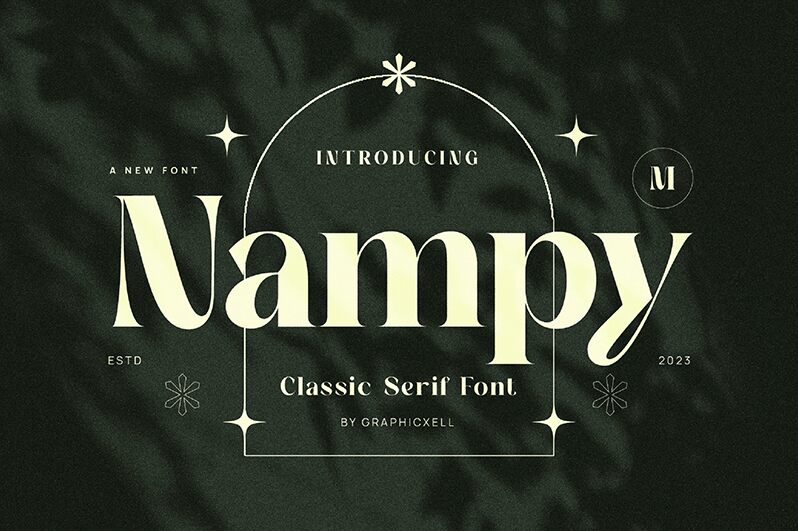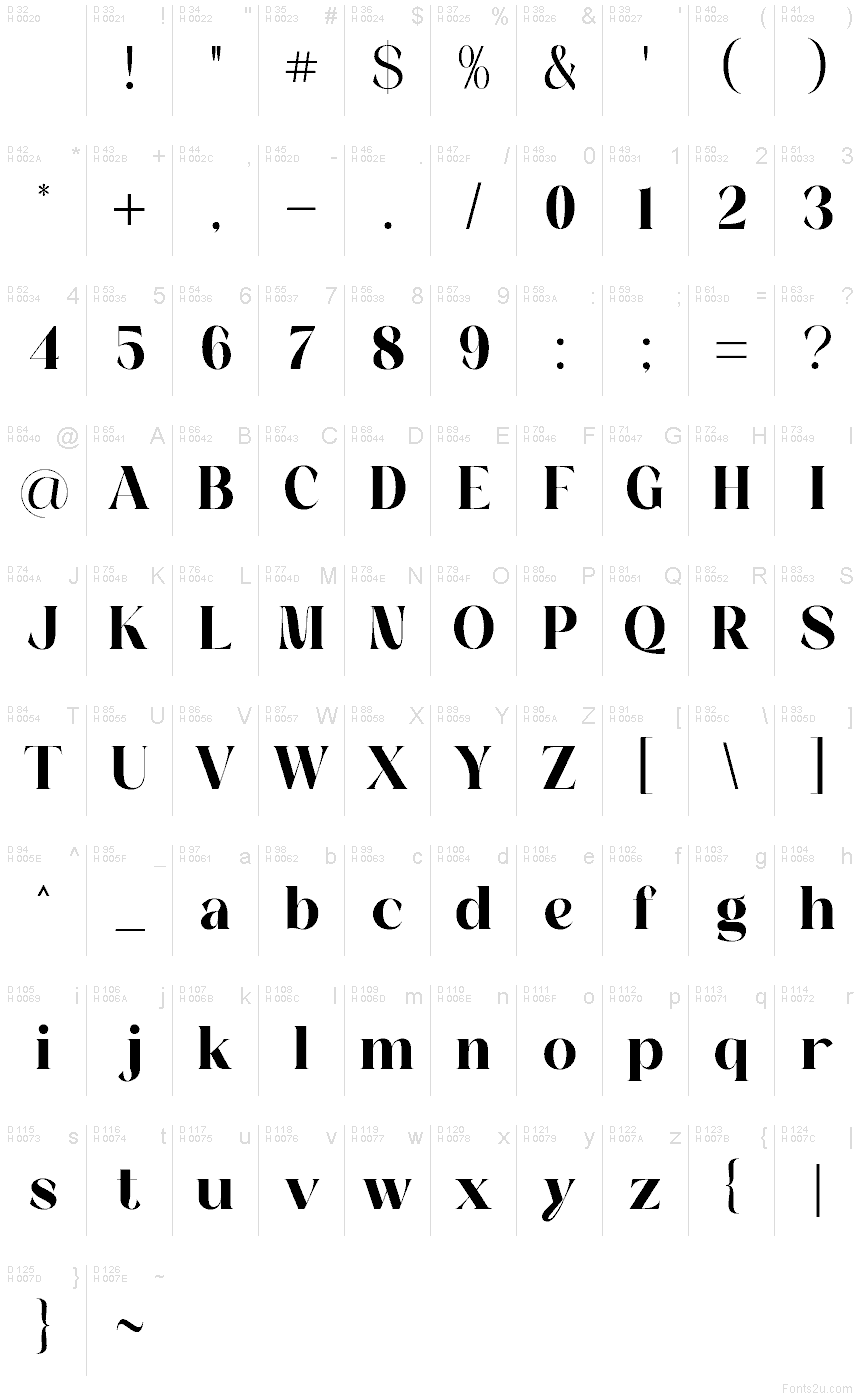
Nampy
Nampy font by Graphicxell is a free serif typeface with a sculptural attitude—thick, inky stems taper into whisper-thin strokes, and curves snap into sharp, chiseled angles. The letterforms feel tailored and glossy, like cut satin, with a sly forward tilt that adds momentum. It stands out without shouting, giving logos and headlines that coveted luxe snap.
Using Nampy, you get rhythm and drama in one go—great for fashion branding, magazine covers, beauty packaging, posters, invitations, and refined wordmarks. Its tight internal spacing keeps forms compact, so give it room to breathe at larger sizes. For body copy or captions, pair this free font with a clean geometric sans to keep the spotlight balanced.